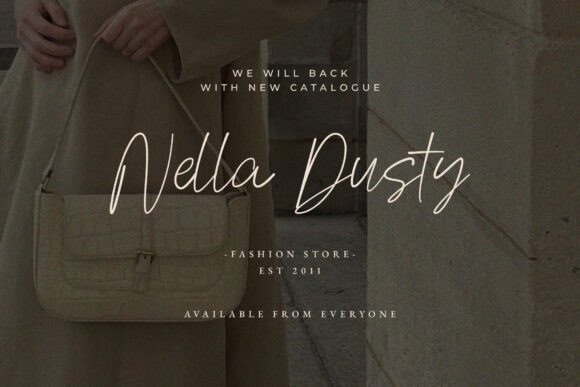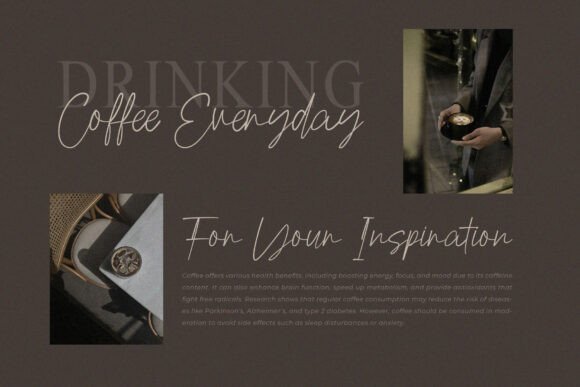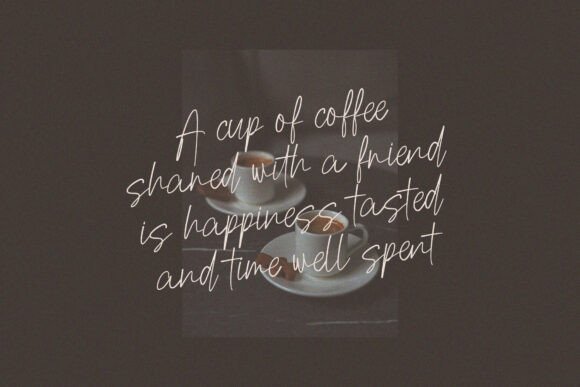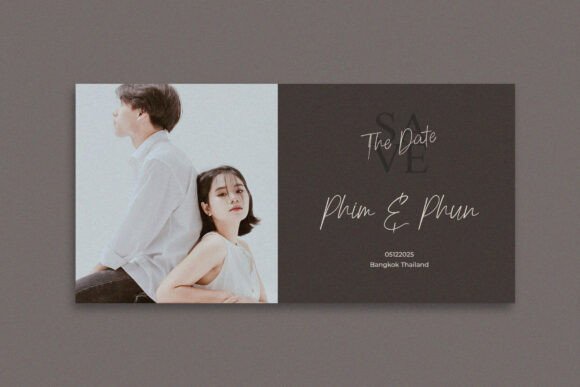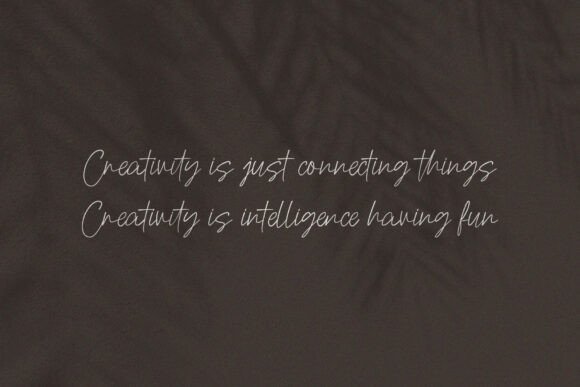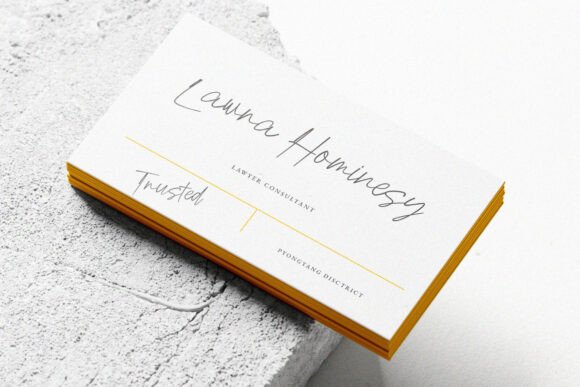
Introducing Genitha Font: Elevate Your Designs with Elegance and Style
Are you tired of using the same old fonts in your designs? Look no further! We’re excited to introduce the new Genitha Signature Font, a beautiful and stylish handwritten script that will take your designs to the next level. With its elegant and refined aesthetic, Genitha Font is perfect for designers, crafters, and anyone looking to add a touch of sophistication to their work.
What to Expect from Genitha Font
Genitha Font is a comprehensive font package that includes a wide range of characters to help you perfect your design. Here are some of the exciting features you can expect:
- Full set of lowercase and uppercase letters: With both lowercase and uppercase letters, you can create stunning headlines, titles, and body text that exude elegance and style.
- Multilingual support: Genitha Font supports multiple languages, making it a great choice for designers who work with international clients or want to create designs that cater to a global audience.
- Numerals and punctuation: The font package includes a complete set of numerals and punctuation marks, ensuring that you have everything you need to create professional-looking designs.
The Benefits of Using Genitha Font
So, why choose Genitha Font for your design projects? Here are some benefits that make it an excellent addition to your font library:
- Elegant and stylish: Genitha Font boasts a beautiful, handwritten script that adds a touch of sophistication to any design.
- Versatile: With its comprehensive character set and multilingual support, Genitha Font can be used for a wide range of design projects, from logos and branding to invitations and social media graphics.
- Easy to read: Despite its elegant aesthetic, Genitha Font is highly legible, making it perfect for body text and other applications where readability is crucial.
How to Use Genitha Font in Your Designs
Using Genitha Font in your designs is easy! Here are some tips to get you started:
- Pair it with other fonts: Genitha Font pairs well with a variety of fonts, from sans-serif and serif fonts to other script fonts. Experiment with different combinations to find the perfect look for your design.
- Use it for headlines and titles: Genitha Font’s elegant aesthetic makes it perfect for headlines and titles. Use it to add a touch of sophistication to your design and draw attention to important information.
- Add a personal touch: Genitha Font’s handwritten script gives it a personal, human touch. Use it to add a bit of personality to your design and make it more relatable.
Who Can Benefit from Genitha Font?
Genitha Font is perfect for a wide range of designers and crafters, including:
- Graphic designers: Add a touch of elegance and sophistication to your designs with Genitha Font.
- Stationery and card makers: Use Genitha Font to create beautiful, professional-looking stationery and cards.
- Social media influencers and bloggers: Add a bit of personality to your social media graphics and blog posts with Genitha Font.
- Crafters and DIY enthusiasts: Use Genitha Font to add a personal touch to your craft projects, from scrapbooking to home decor.